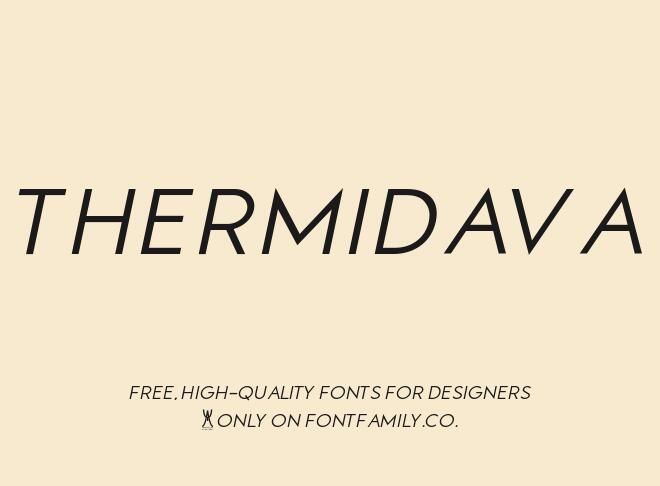
Thermidava Font
Thermidava Font, created by Thermidava Foundry, is a modern, geometric, and minimalistic typeface released in 2021. Its clean lines and balanced proportions provide a fresh and contemporary feel. This font is perfect for display purposes, making it a great choice for branding, web design, and print design. Compared to other fonts, Thermidava stands out due to its unique character and style that adds a sophisticated touch to any design. It is free for personal use, which makes it an excellent choice for designers on a budget. The font's geometric design makes it versatile, allowing it to be used in a variety of design contexts, from corporate to creative. Thermidava Font not only elevates your design but also improves readability, making it a great addition to your font collection.